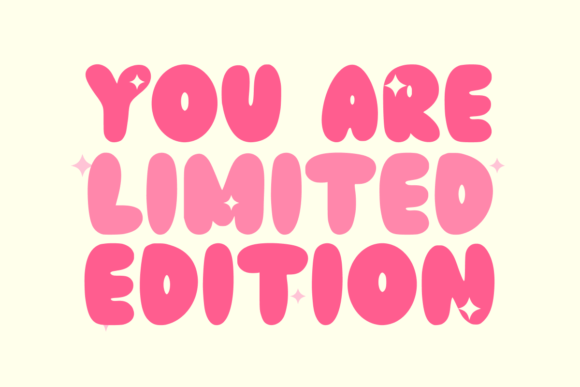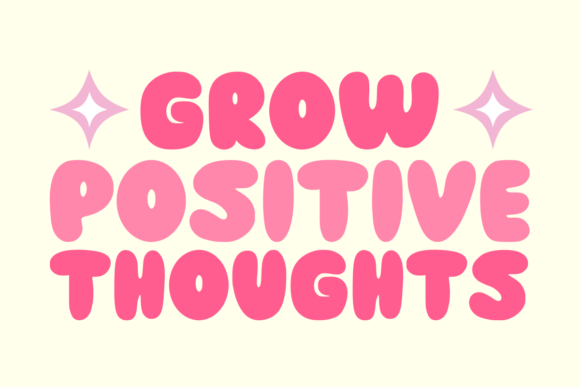
Retro Bubble Font
Retro Bubble is a modern, bold retro bubble display font. this font is ready to be used in any project. Very suitable for logotype, Stickers, Packaging design, Cricut Project, headlines, brand identity, t shirt or apparel industry, posters, magazines, books, YouTube, Instagram, websites, or any of your creative design projects.